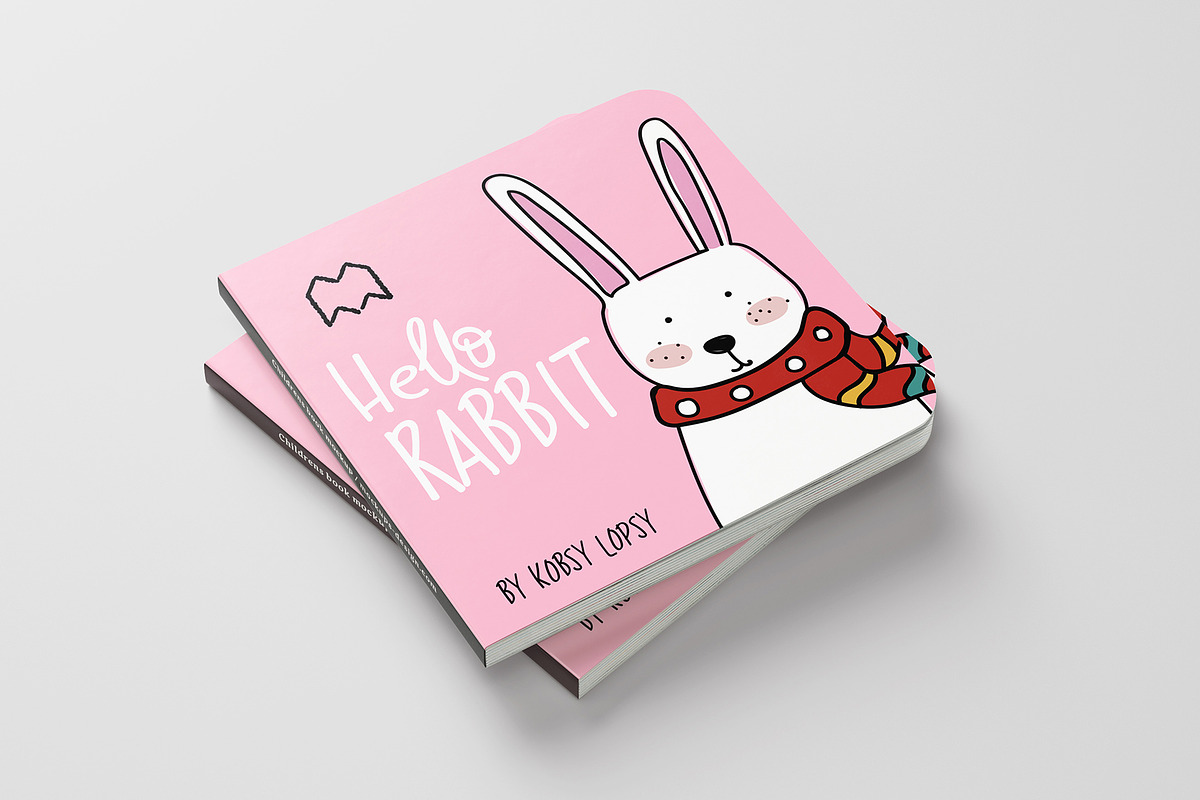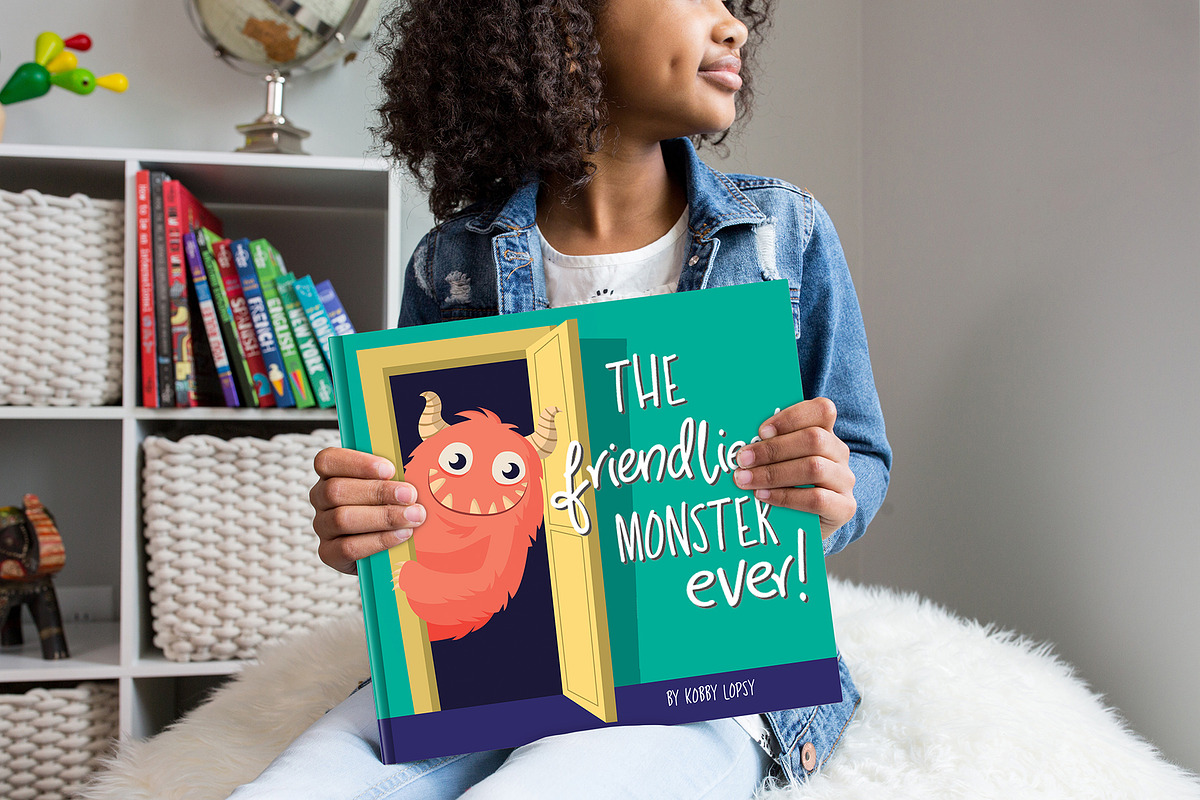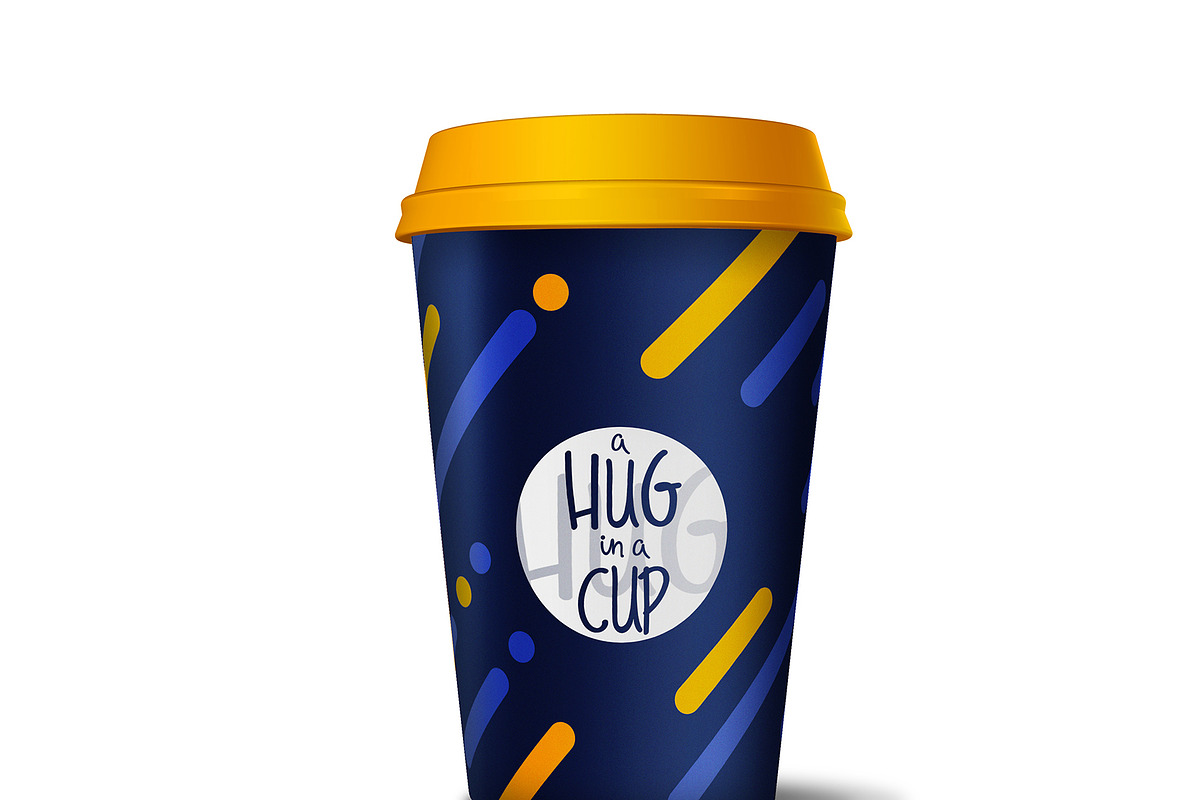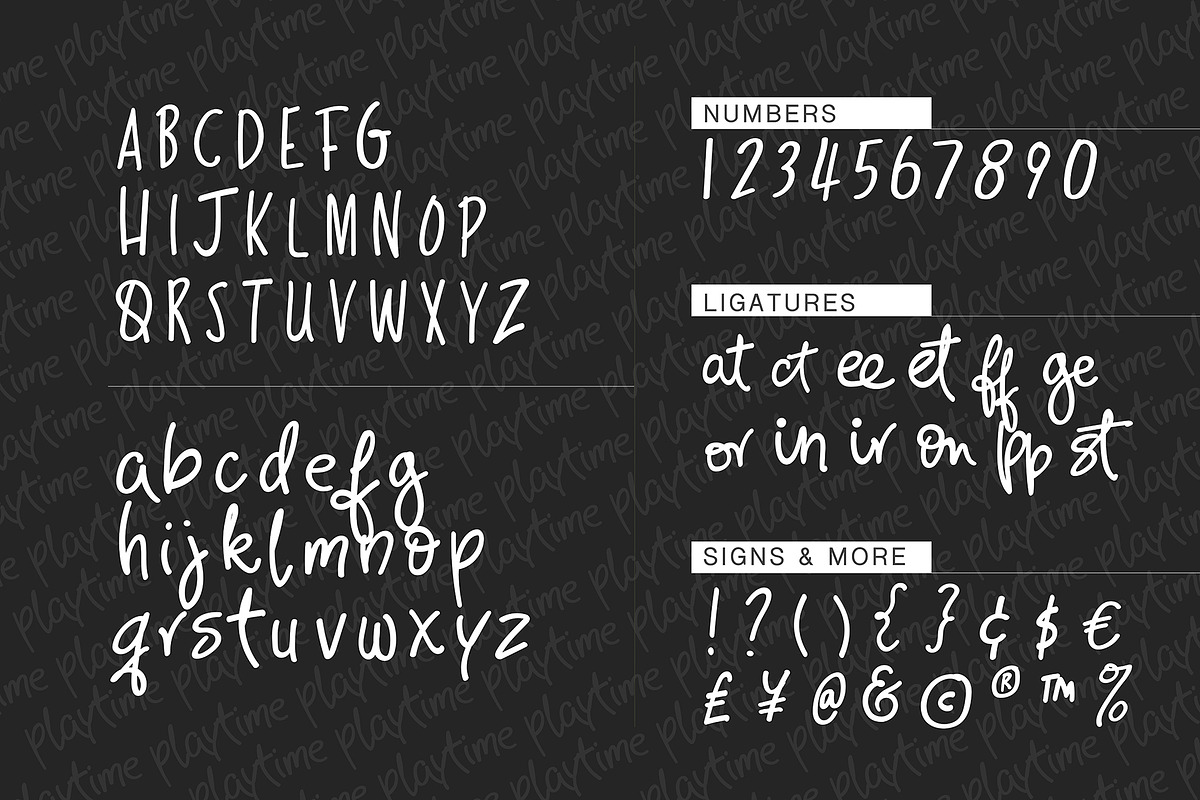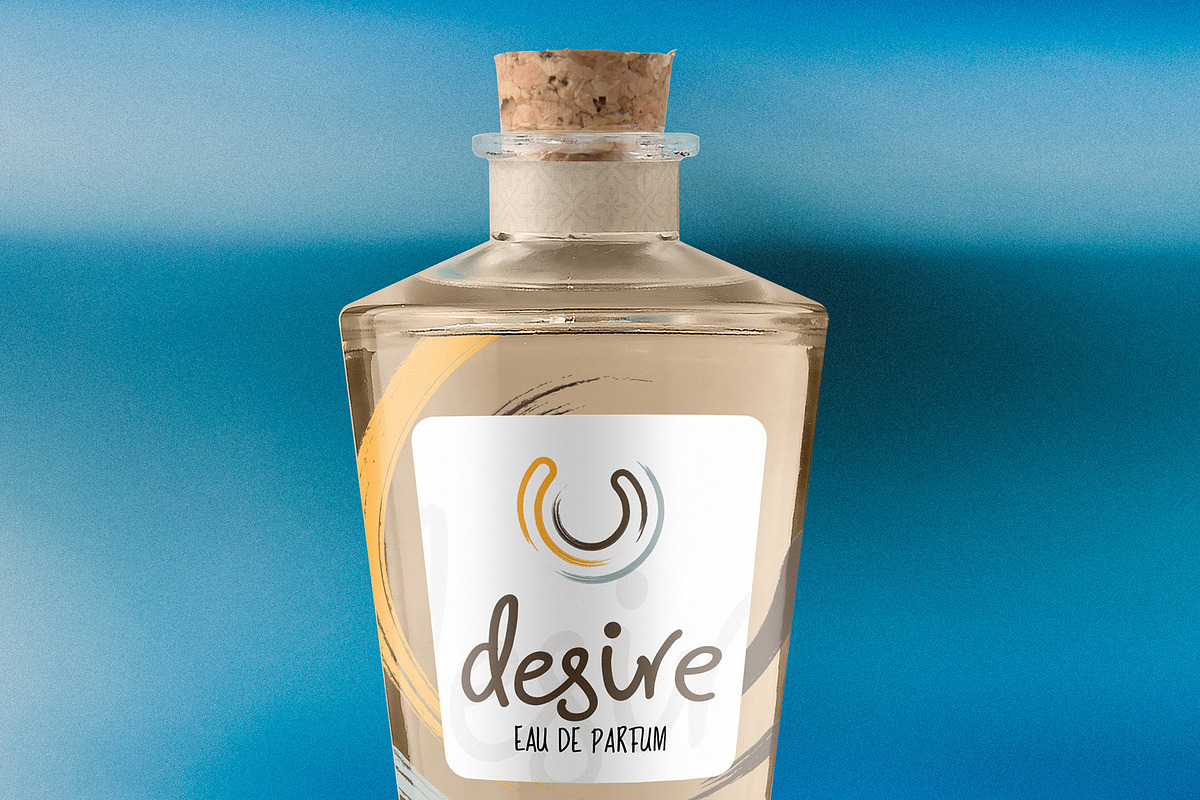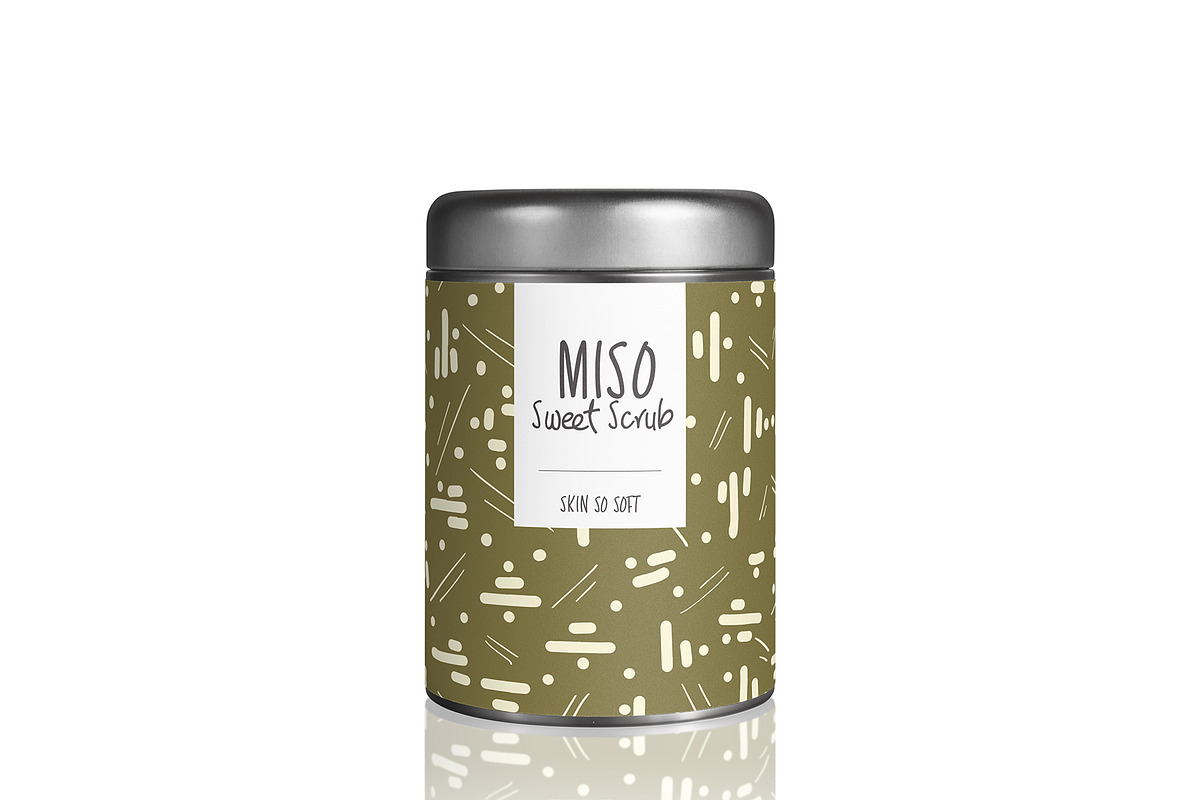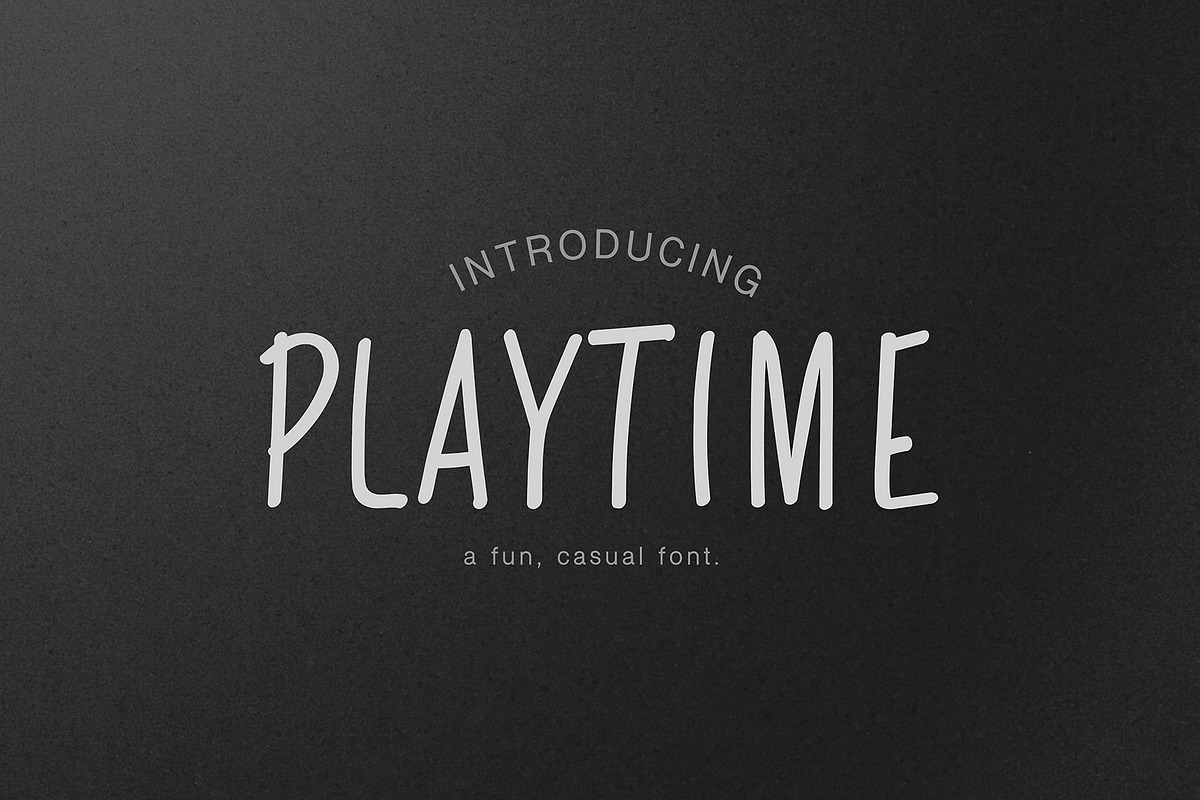
Playtime
Playtime is a fun, casual font that is sure to please. It is well-suited for any marker-type, hand writing and equally perfect for projects that targets children. Whip up a book cover, a stand-out page in a casual magazine or let that poster pop with a headline using Playtime! It's eye-catching and yet toned down enough that you won't feel like it's amplifying your voice too much even when used as all caps.